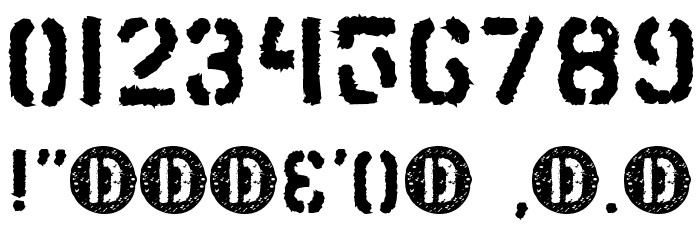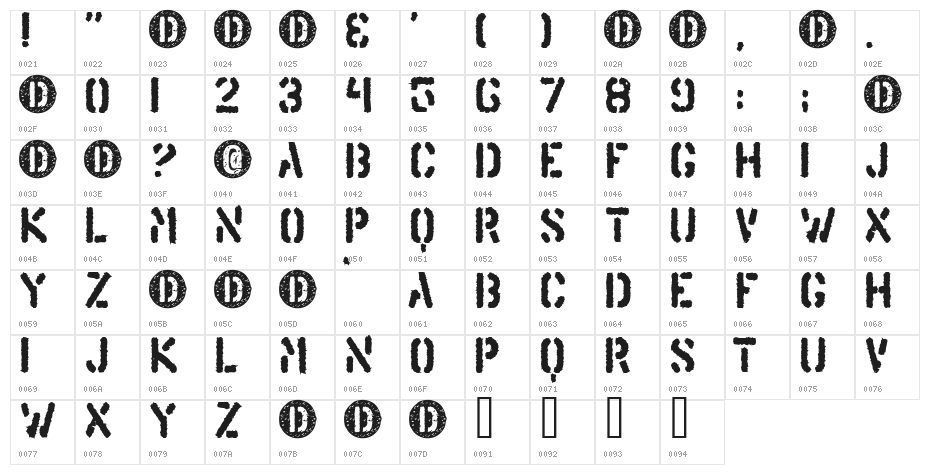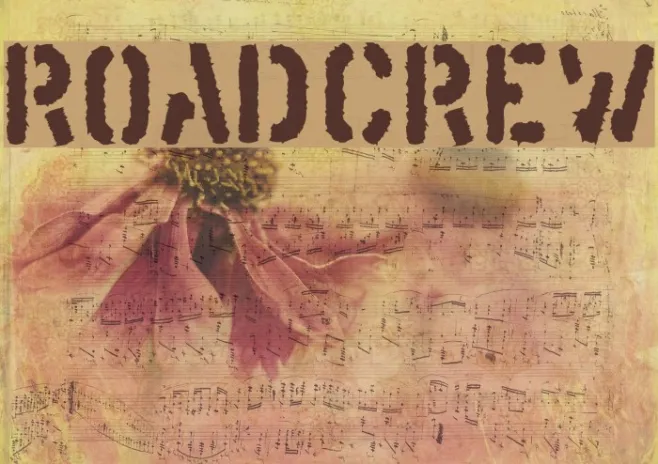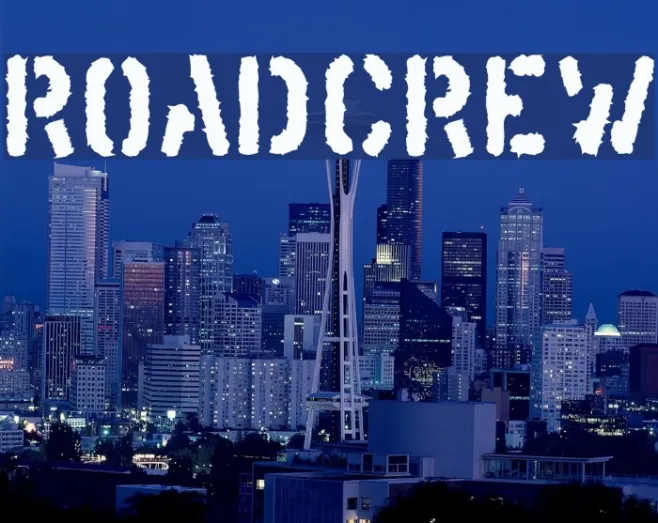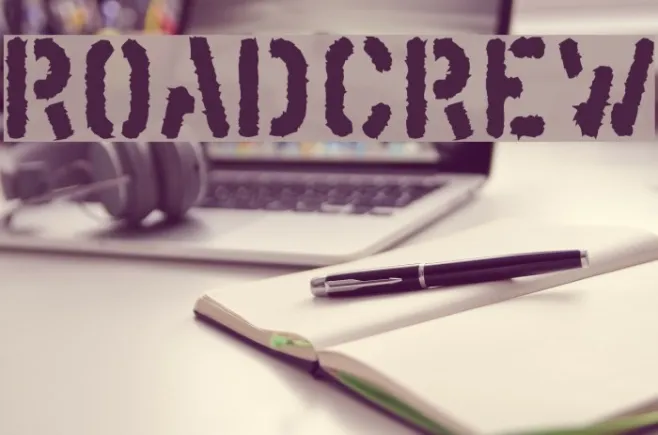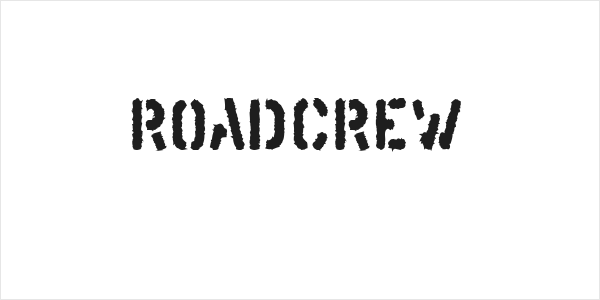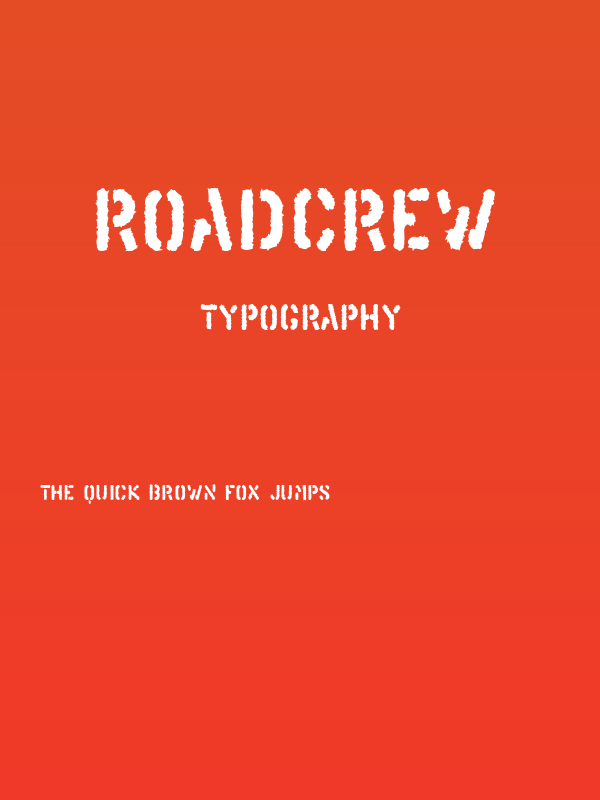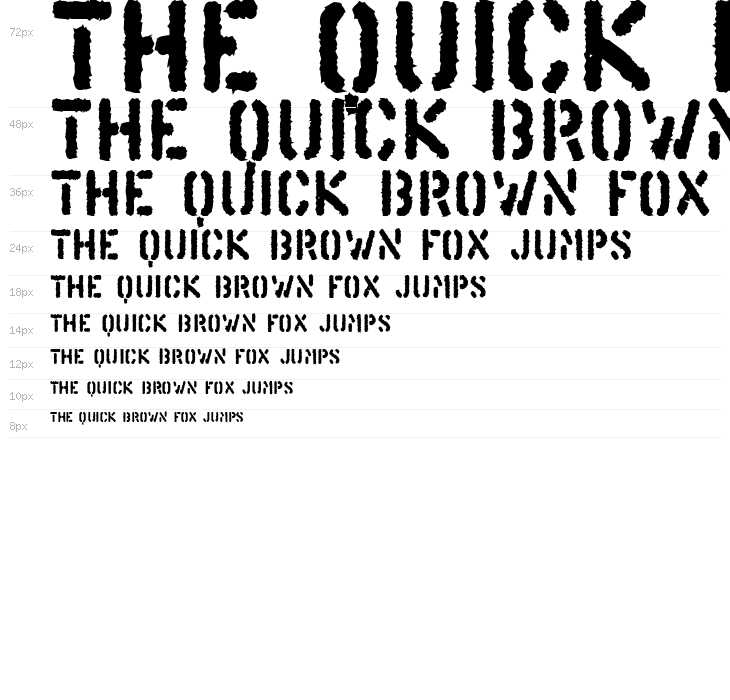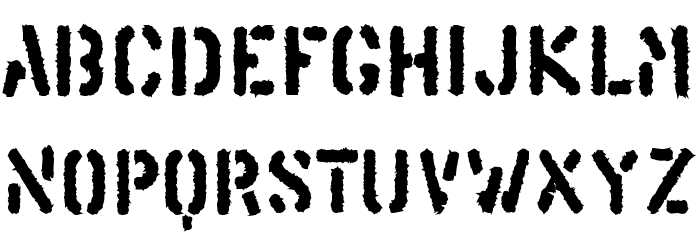
RoadCrew Font
RoadCrew Description
This font features a rugged, distressed appearance reminiscent of stenciled lettering often seen on industrial equipment or road signs. Each character is bold and blocky, with a rough texture that gives it a worn, vintage feel. The uppercase and lowercase letters maintain a consistent style, with the uppercase being slightly larger and more pronounced. Numbers and special characters follow the same design, ensuring uniformity across all elements. The font's unique style makes it stand out, ideal for projects requiring a bold, eye-catching typeface.